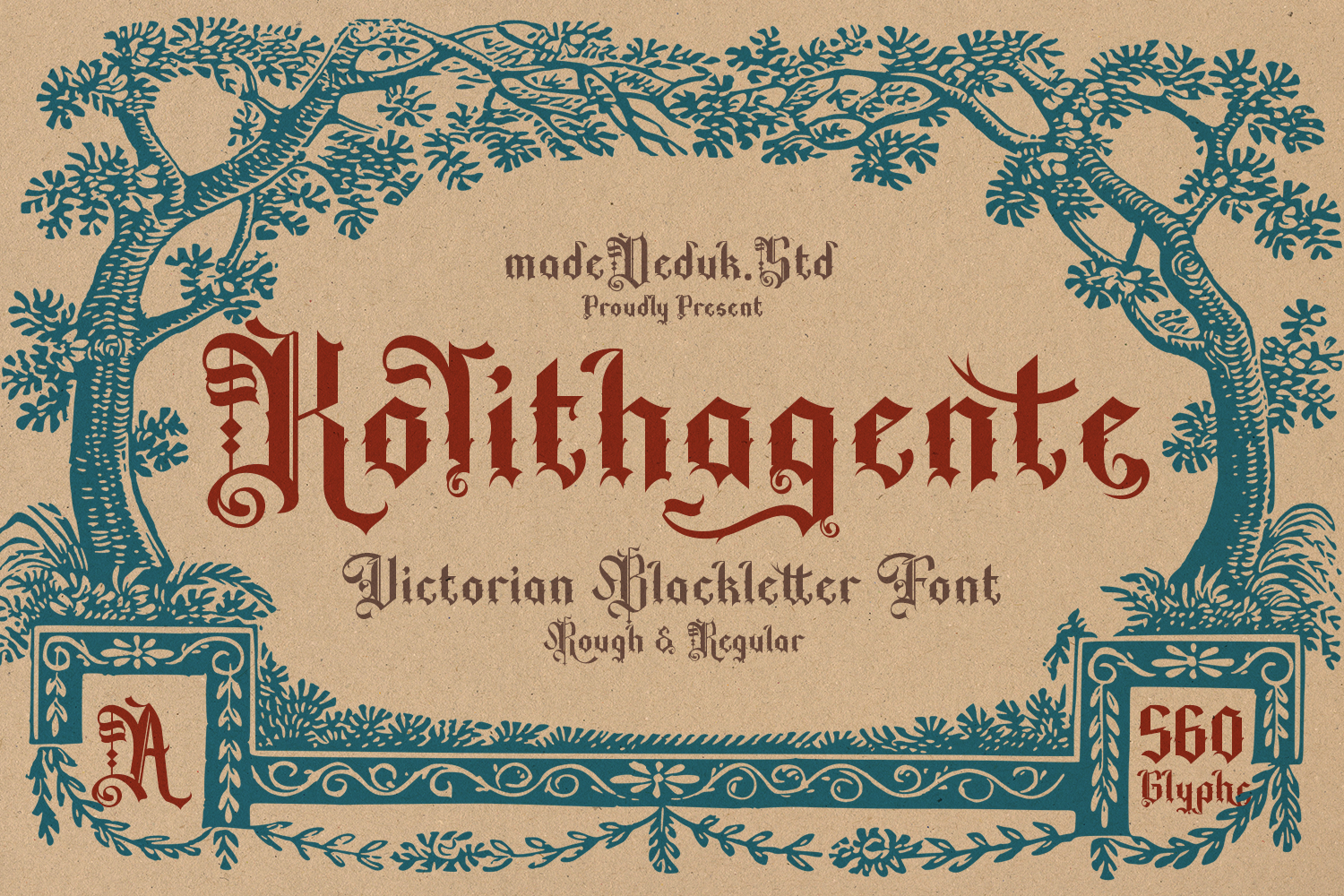
Kolithagente Blackletter
Hello I'm really excited to introduce Kolithagente Masterfully designed to become a strong type mix Victorian and Blackletter type, this font has the potential to bring each of your creative ideas to the highest level. Come with different style combine with ligatures and special alternative glyphs so you can create a lots with layouts and compositions. This font is perfectly made to be a logo, and the other various formal forms such as invitations, labels, logos, magazines, books cover, greeting cards, packaging, fashion, make up, novels, labels whether you’re creating digital content or printed materials.
•  Uppercase & Lowercase
•  Number & Symbol
•  International Glyphs
•  Multilingual support
•  Alternative
•  Ligature